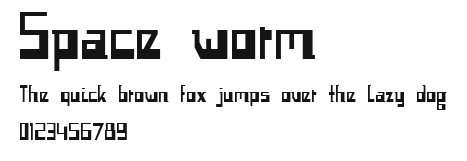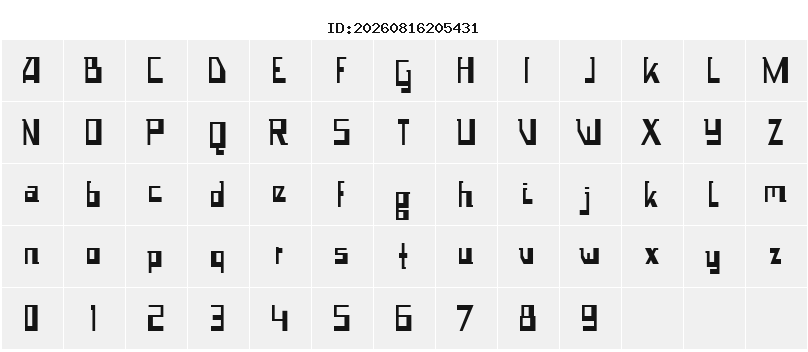
Space worm Preview
• Font Name: Space worm
• Full Font Name: Space worm
About Space worm.ttf
Space worm.ttf is a modern, elegant sans-serif font designed for ultimate readability and visual harmony. Perfect for branding, headlines, web design, and print materials.